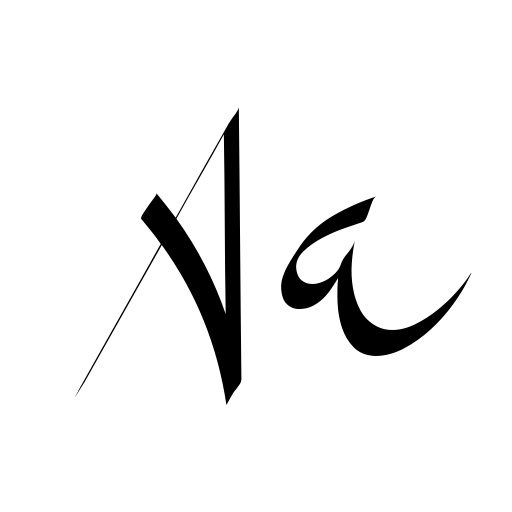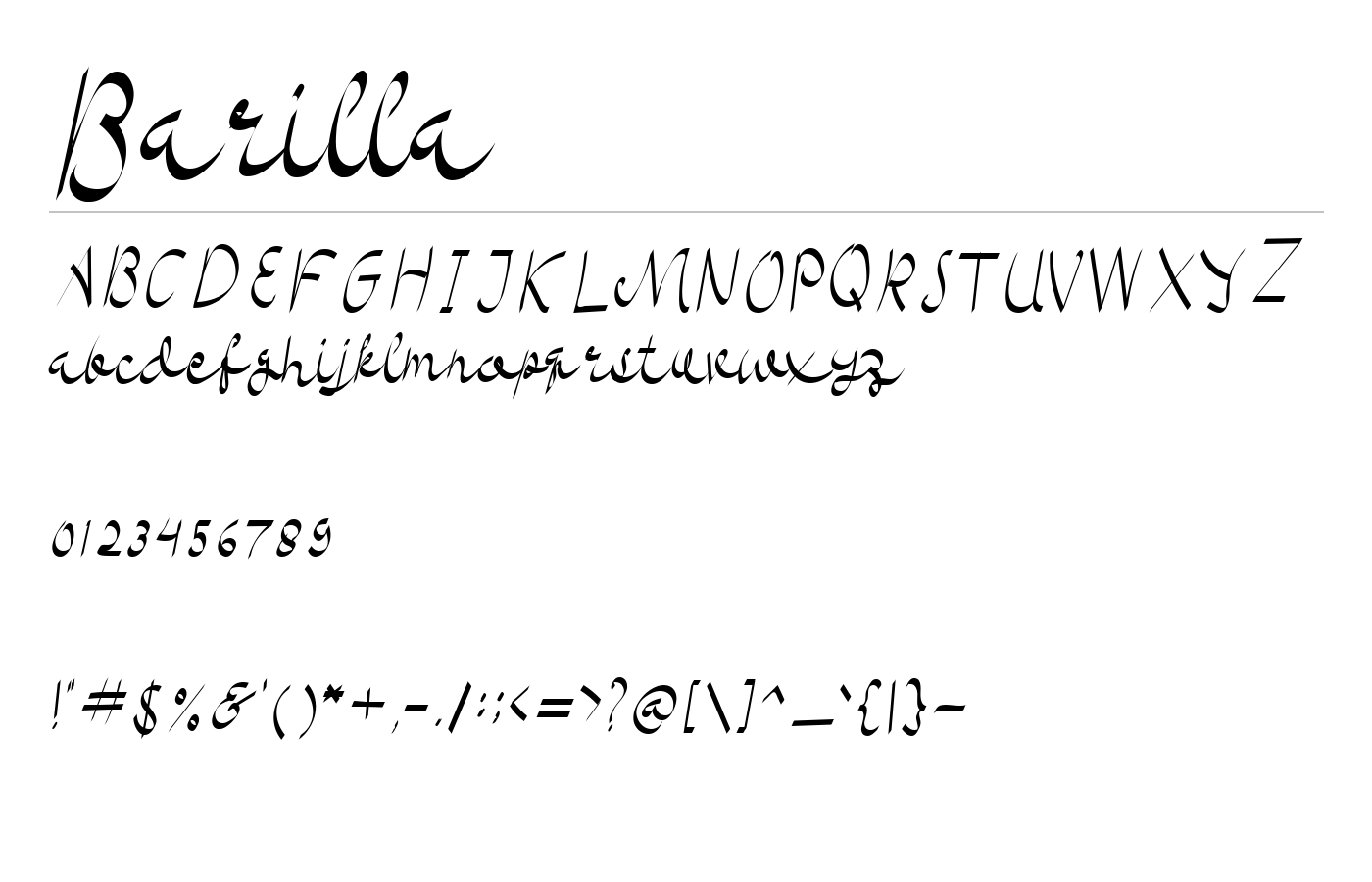
Barilla is a delicate script font with a refined, calligraphic style characterized by slender, flowing strokes and elegant curves. It conveys a sense of sophistication and grace, making it ideal for invitations, luxury branding, and artistic projects that require a personal yet polished touch. The font's light weight and fluid letterforms bring a charming and stylish feel, perfect for designs that want to express elegance and creativity.
Barilla Font